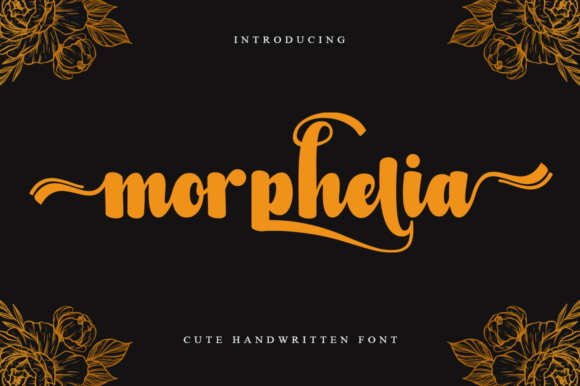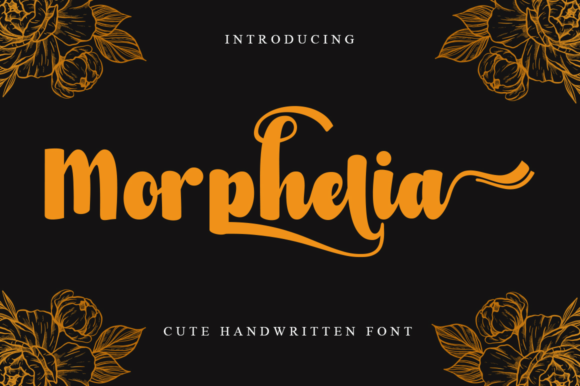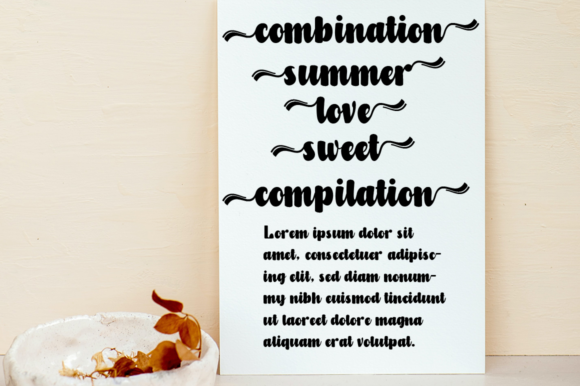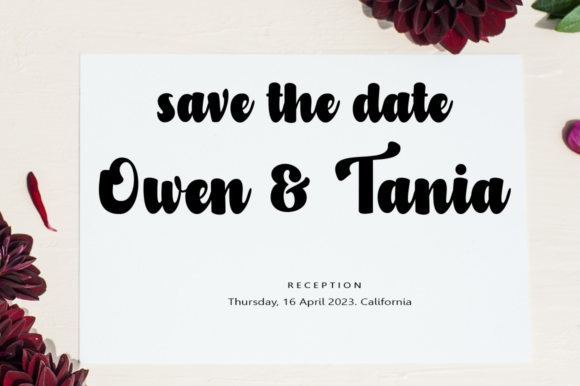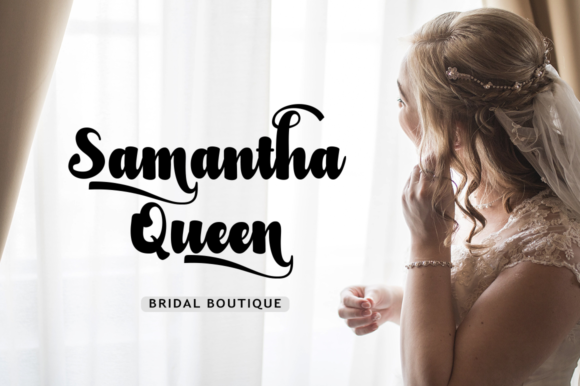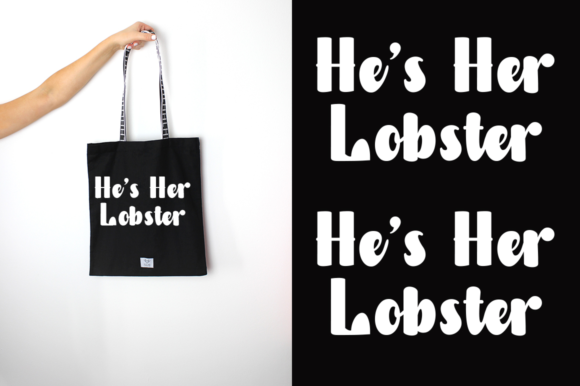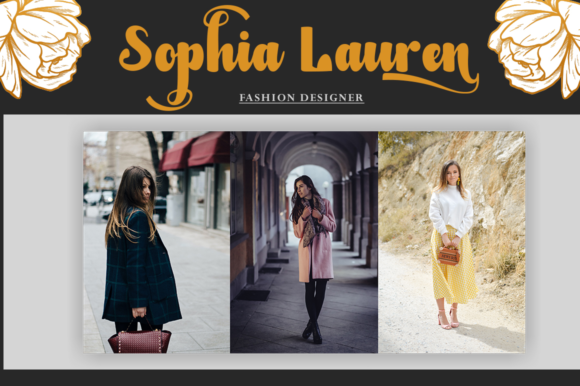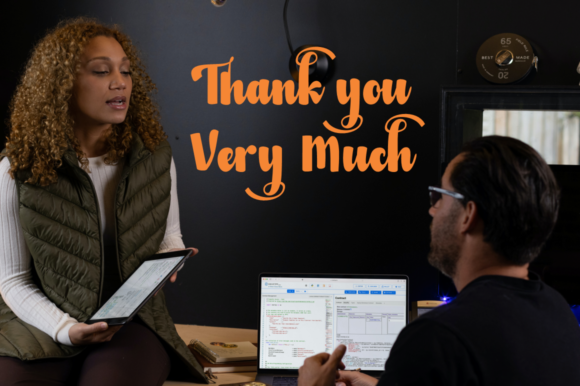
Morphelia Font
About Morphelia Font
“Morphelia” is a distinctive and stylish script font with thick lettering that commands attention. This trendy font has the power to elevate your creations, adding a touch of uniqueness to your design projects. With the convenience of PUA encoding, accessing all the intricate glyphs and decorative swashes is a seamless process.
The font’s bold and distinct letterforms bring a sense of impact and style to your designs. Whether you’re working on branding, posters, packaging, or digital graphics, “Morphelia” has the ability to infuse your creations with a modern and eye-catching quality.
The font’s on-trend nature allows it to seamlessly fit into various design concepts. Its thick lettering adds a sense of authority and contemporary flair, making it a perfect choice for projects that require a bold and visually impactful touch. By incorporating “Morphelia” into your designs, you introduce an element of sophistication and visual appeal that resonates with your audience.
In summary, “Morphelia” is more than just a font—it’s a creative tool that enhances your designs with its thick, distinct script. Its ability to evoke style and its adaptability to different design scenarios make it a valuable asset for designers seeking to create memorable and visually striking projects that leave a lasting impression.